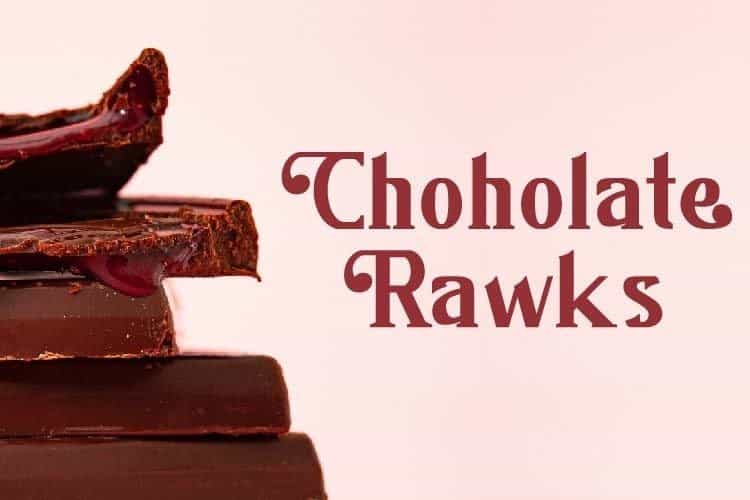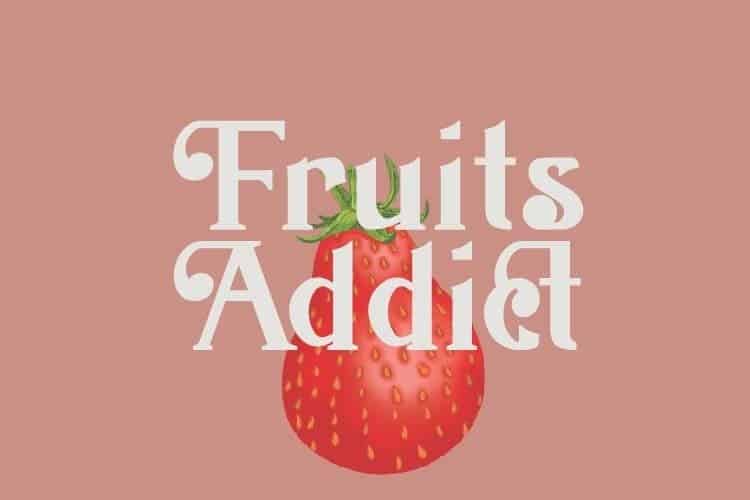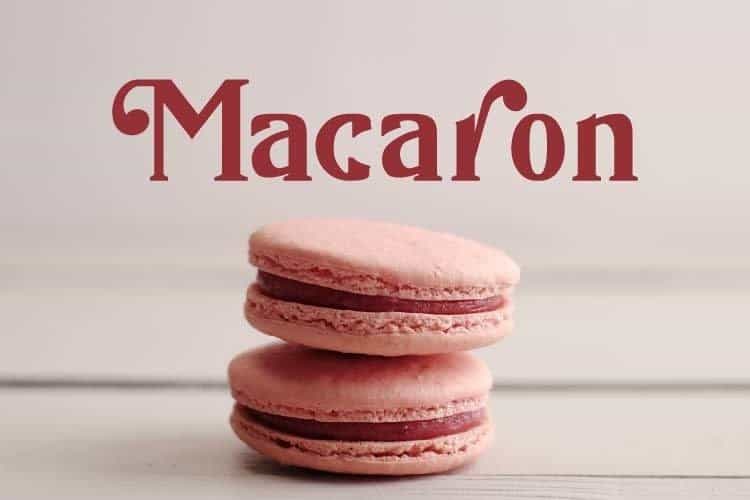
Gangsoka Serif Font
Gangsoka Serif Font– A modern seri bold serif typeface. The stylistic alternates and ligatures make this font event more unique and stands from the crowd. It’s designed and shared by prioritype. This is an elegant, classy looking font that’s perfect for your project and supports multilingualism and a variety of excellent font alternatives. Can be applied to a variety of print and digital media such as logos, food packaging, clothing stores, accessories, clothing, creative items and others. For reference, see preview.